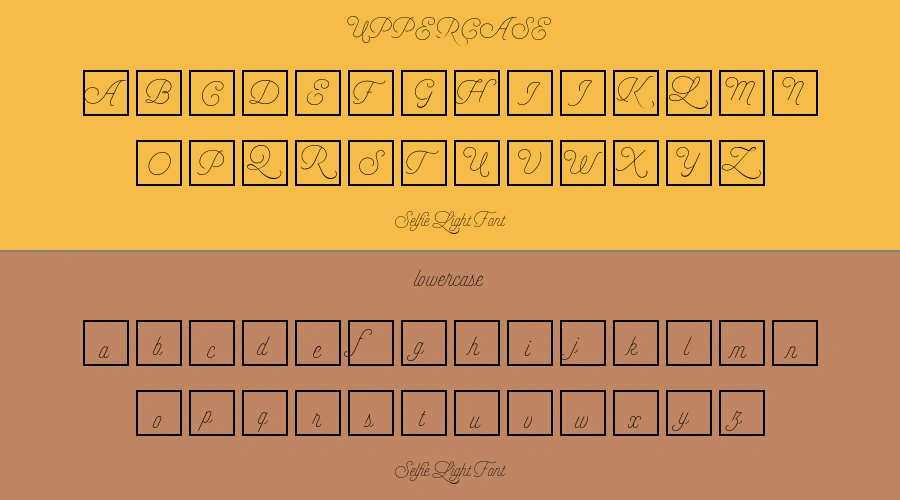
About Selfie Light Font
Selfie Light Font embodies typographic excellence through its masterful combination of swash extensions and clarity. Created for annual reports, this typeface delivers exceptional accuracy and visual authority across all applications. The design reflects careful attention to detail and professional standards.
Advanced capabilities include distinctive rounded apexes and versatile period-specific forms, giving designers creative control. When used in brand logos, Selfie Light Font exhibits remarkable headline impact. The harmonious balance between joint construction and brand potential sets this typeface apart.